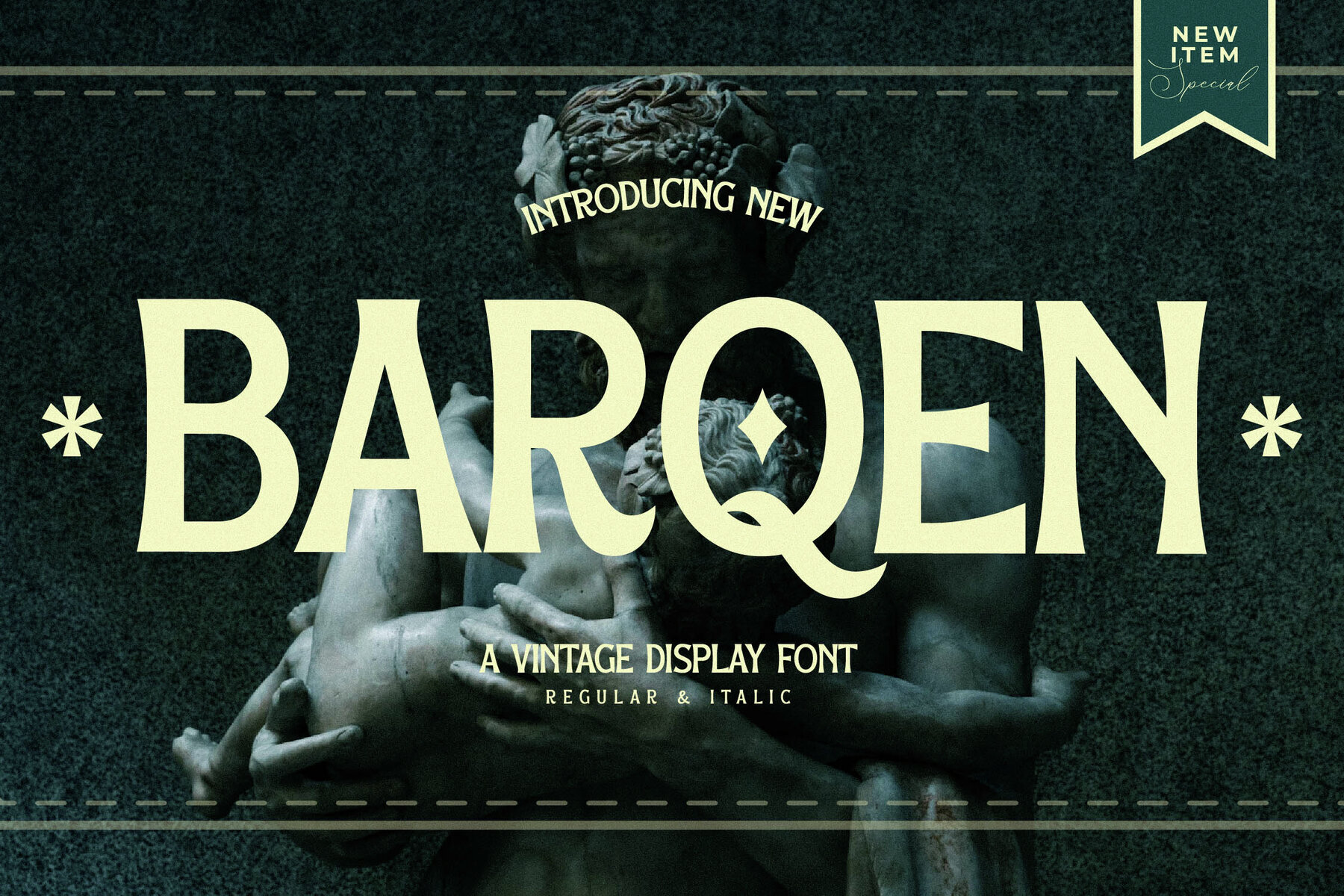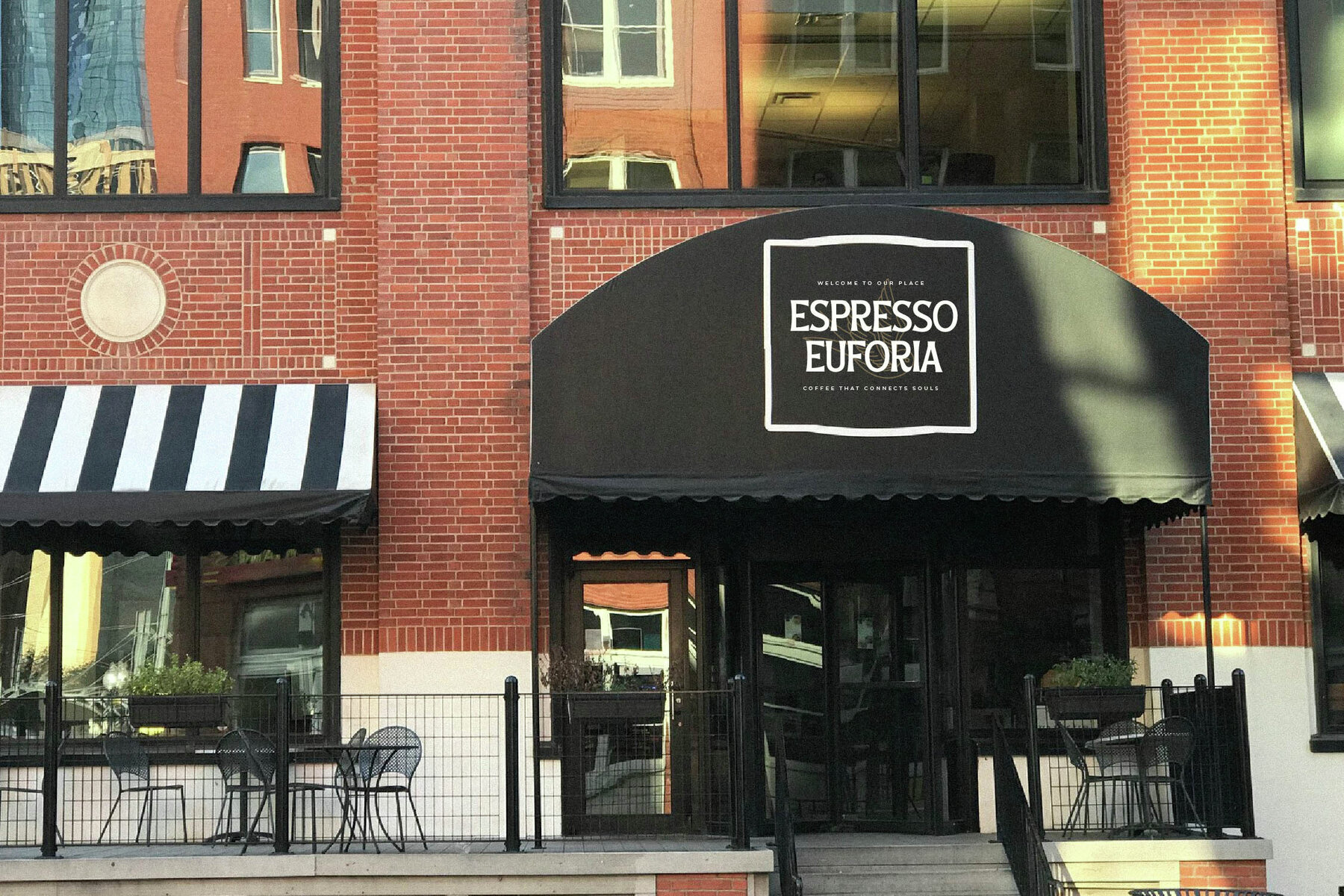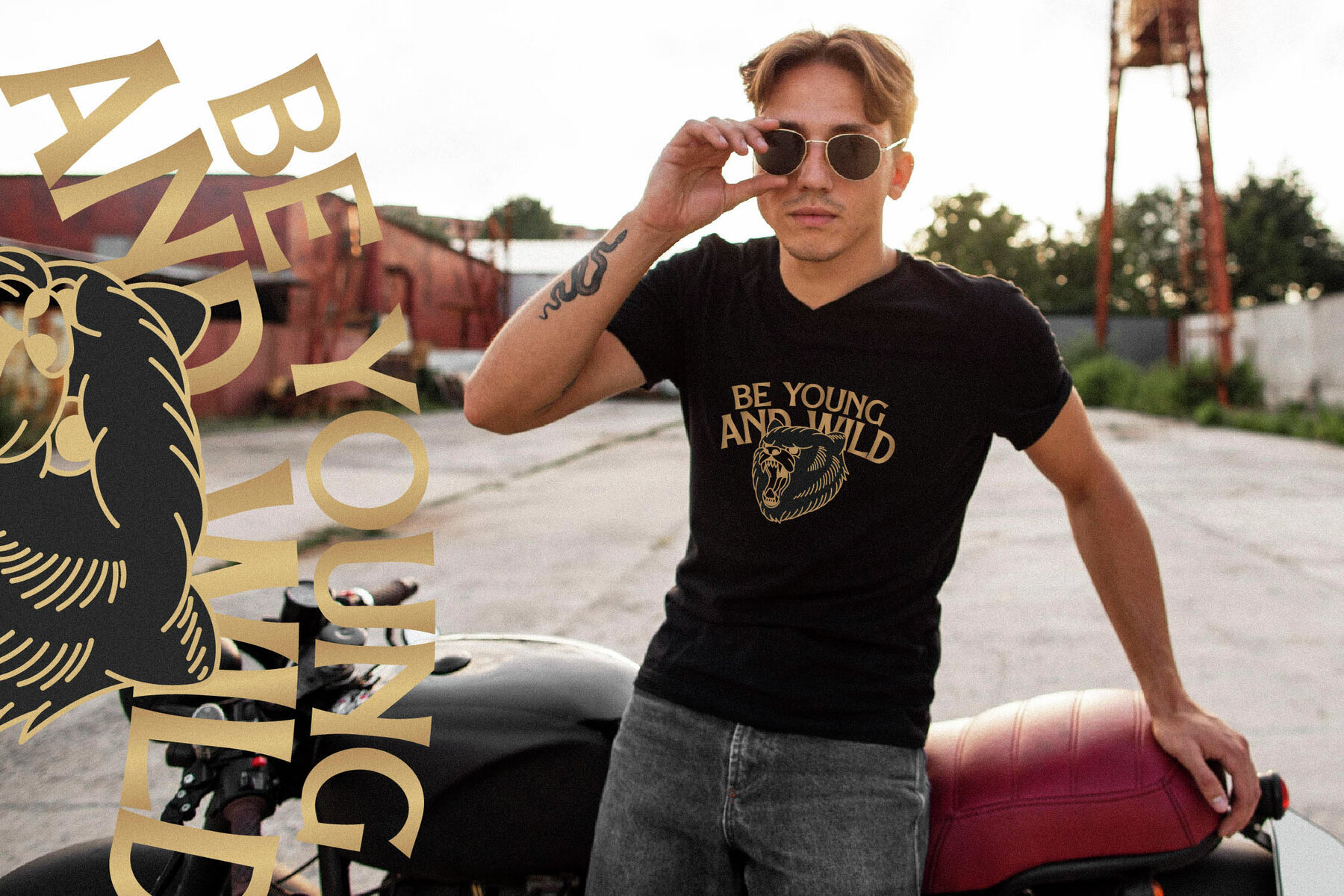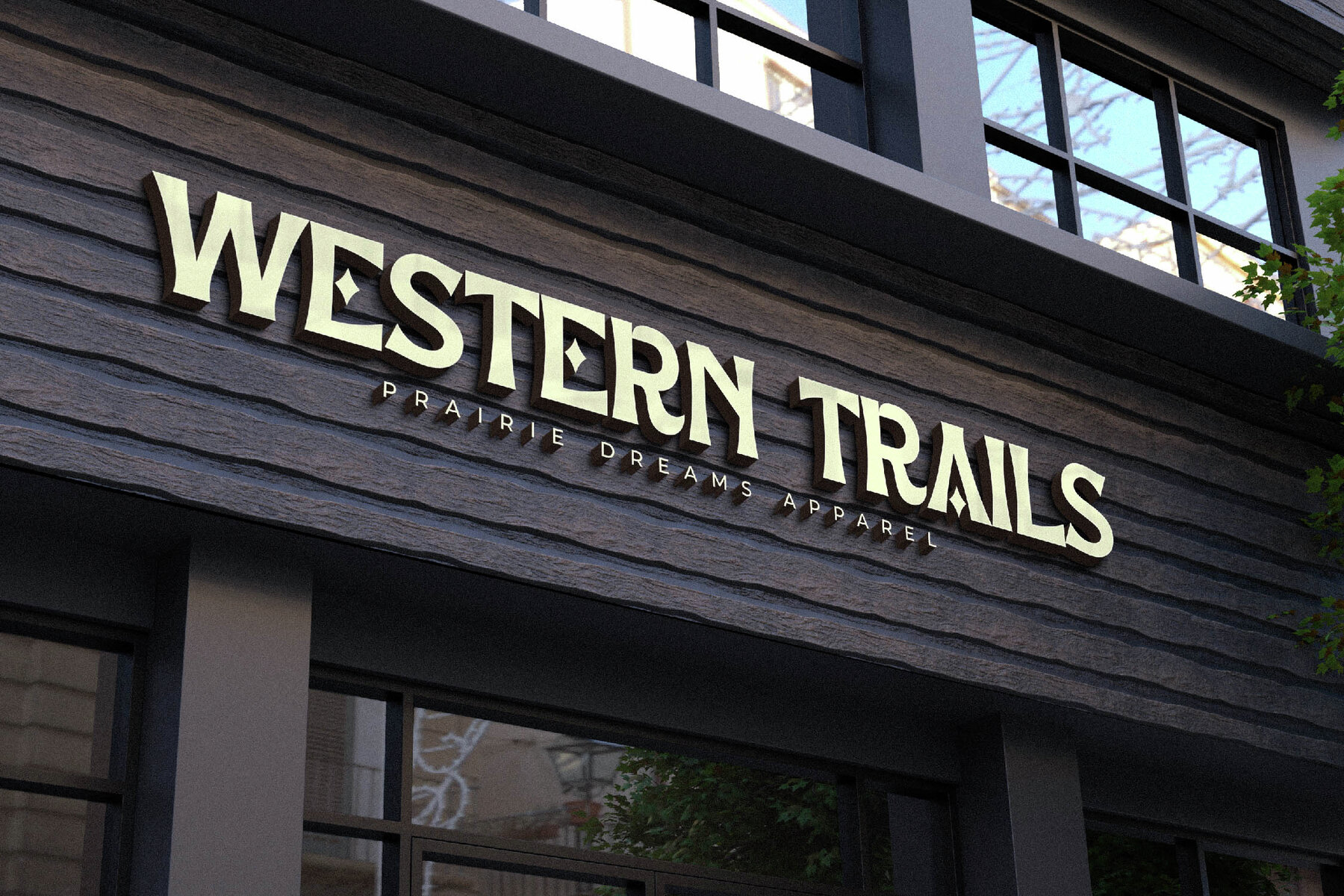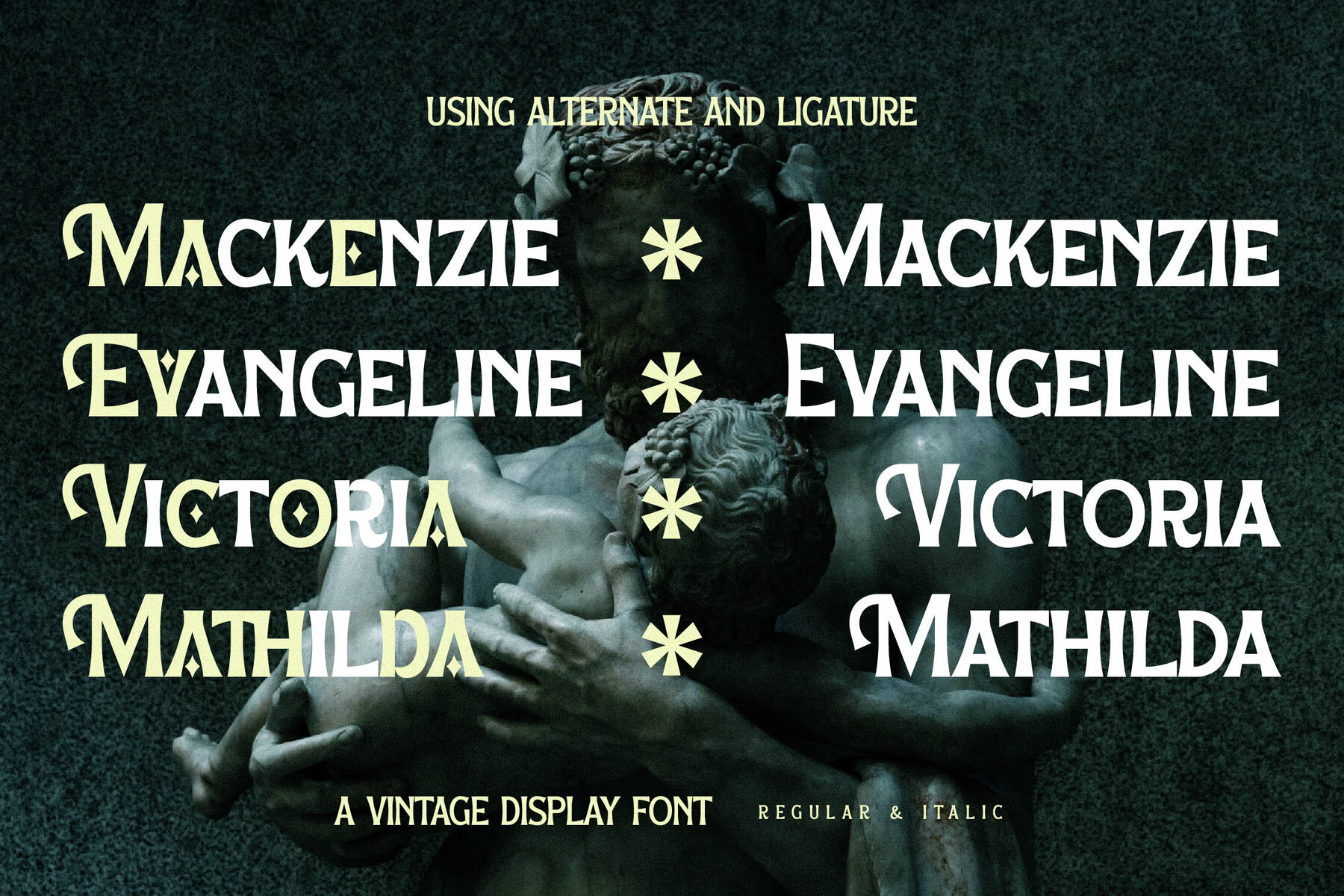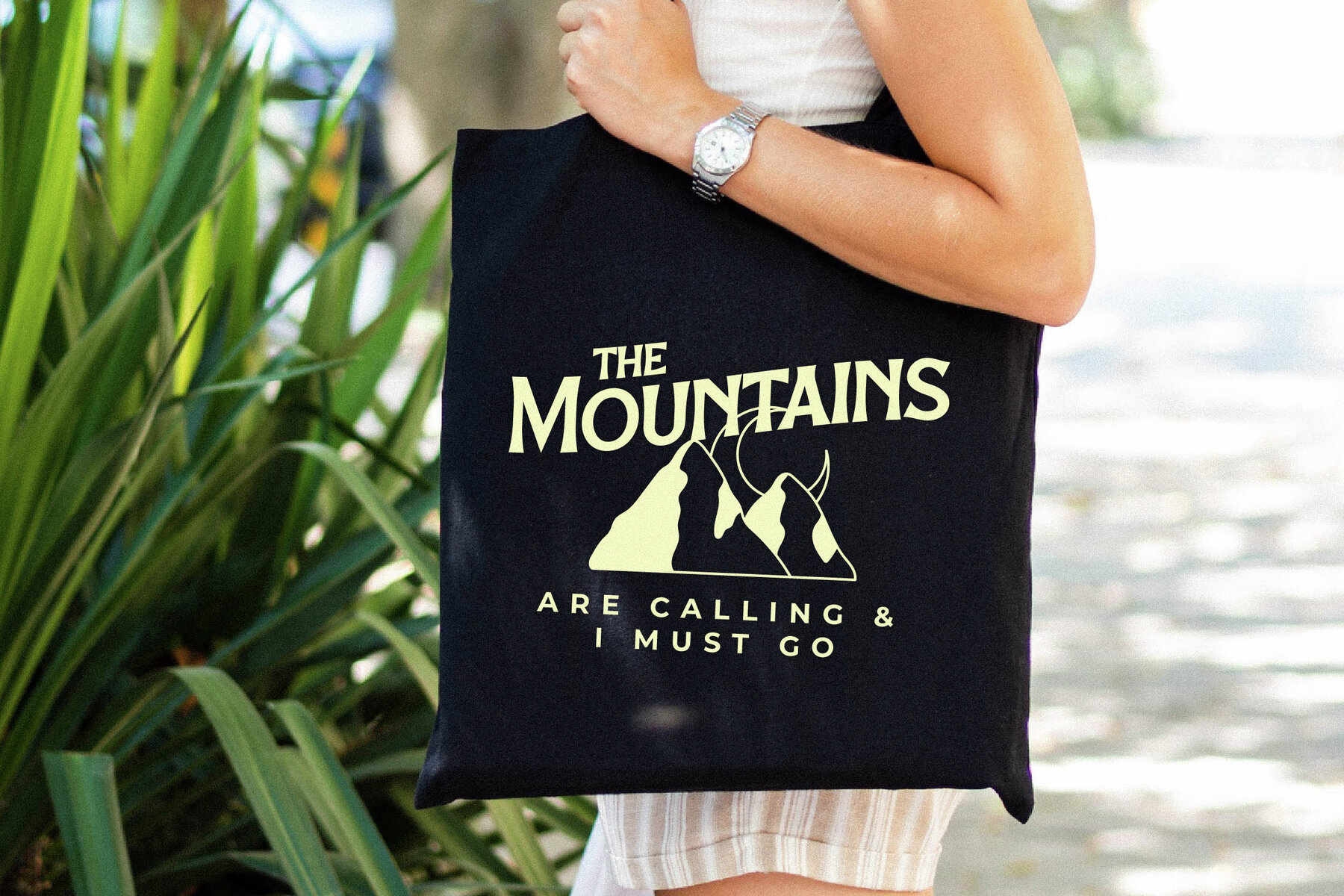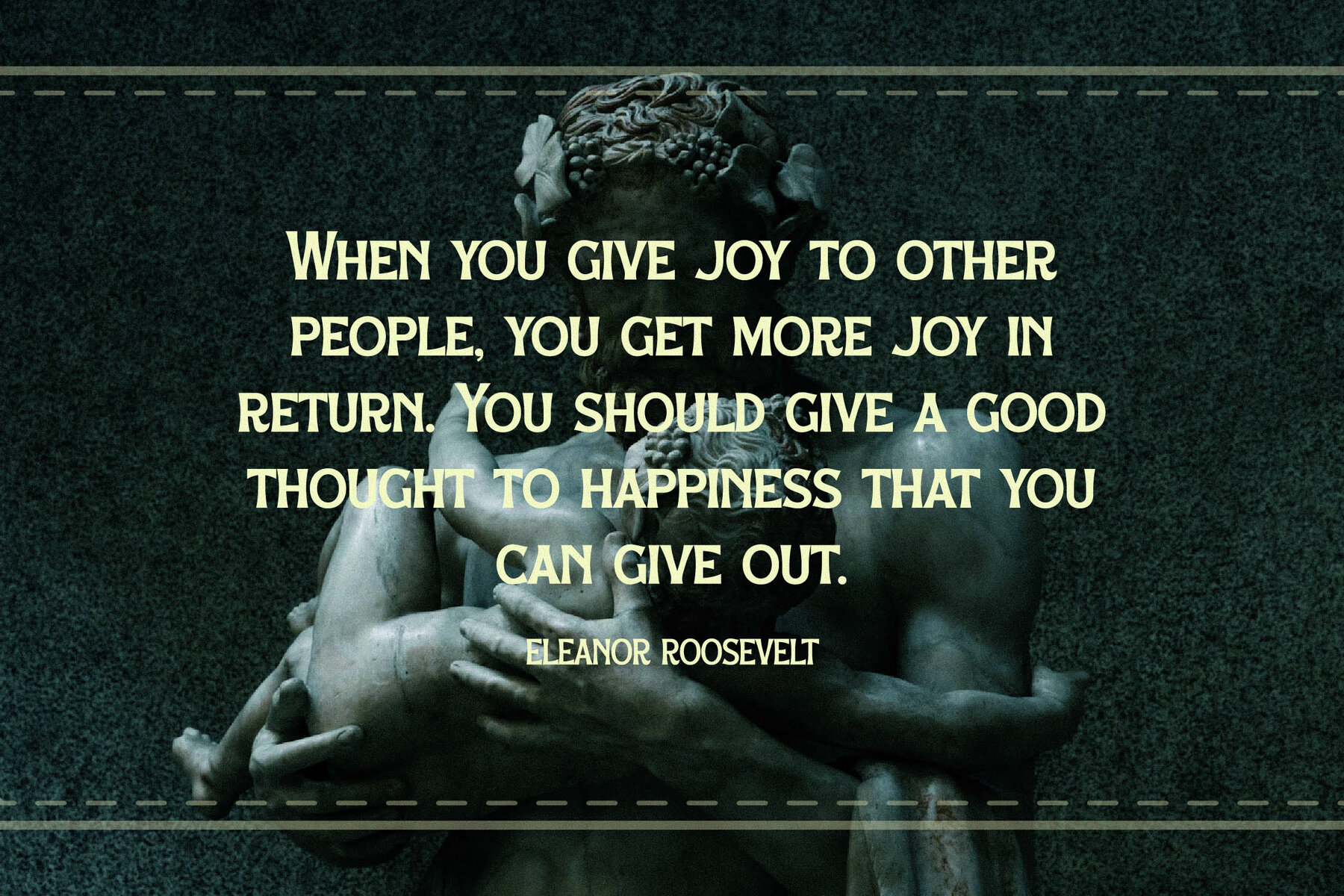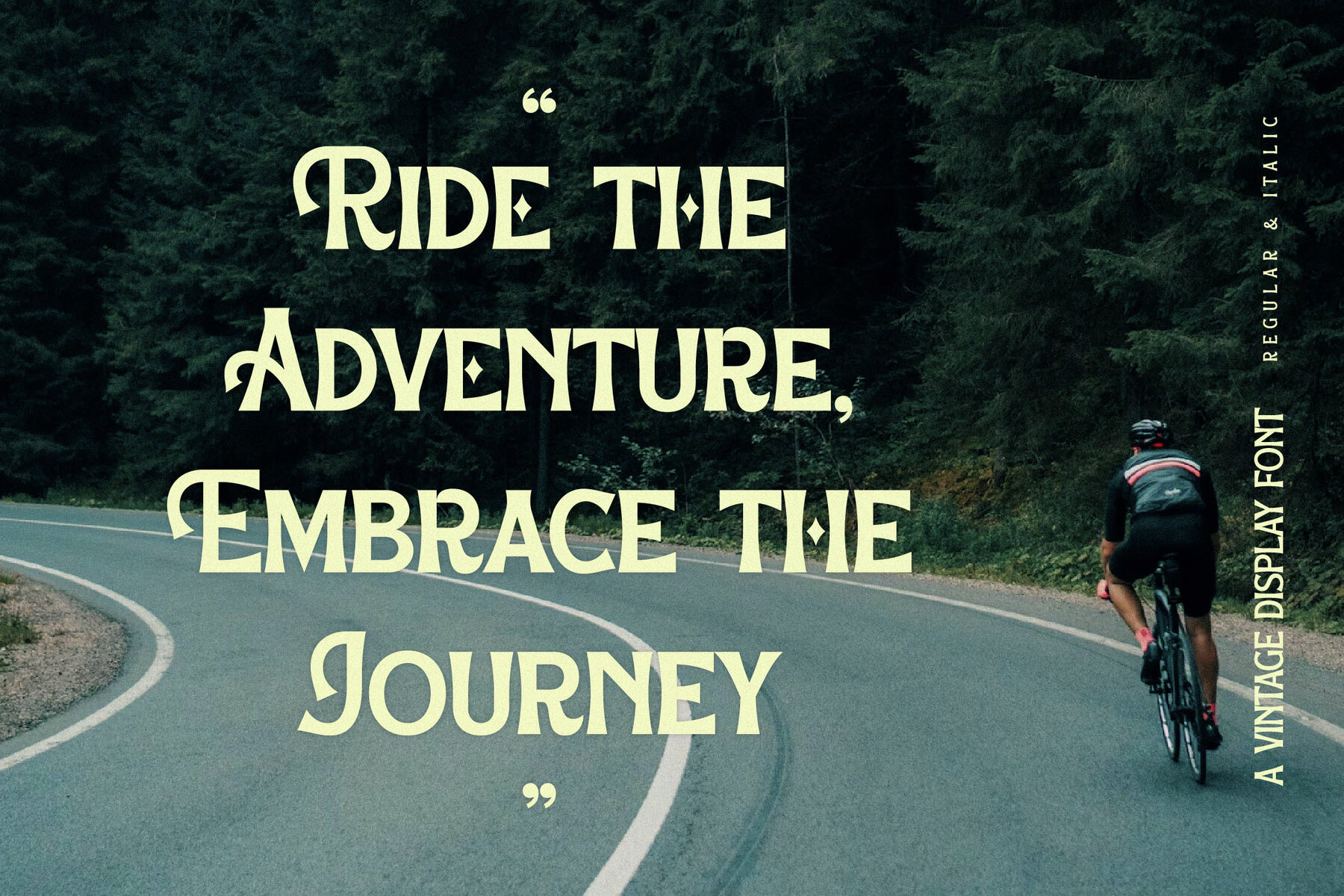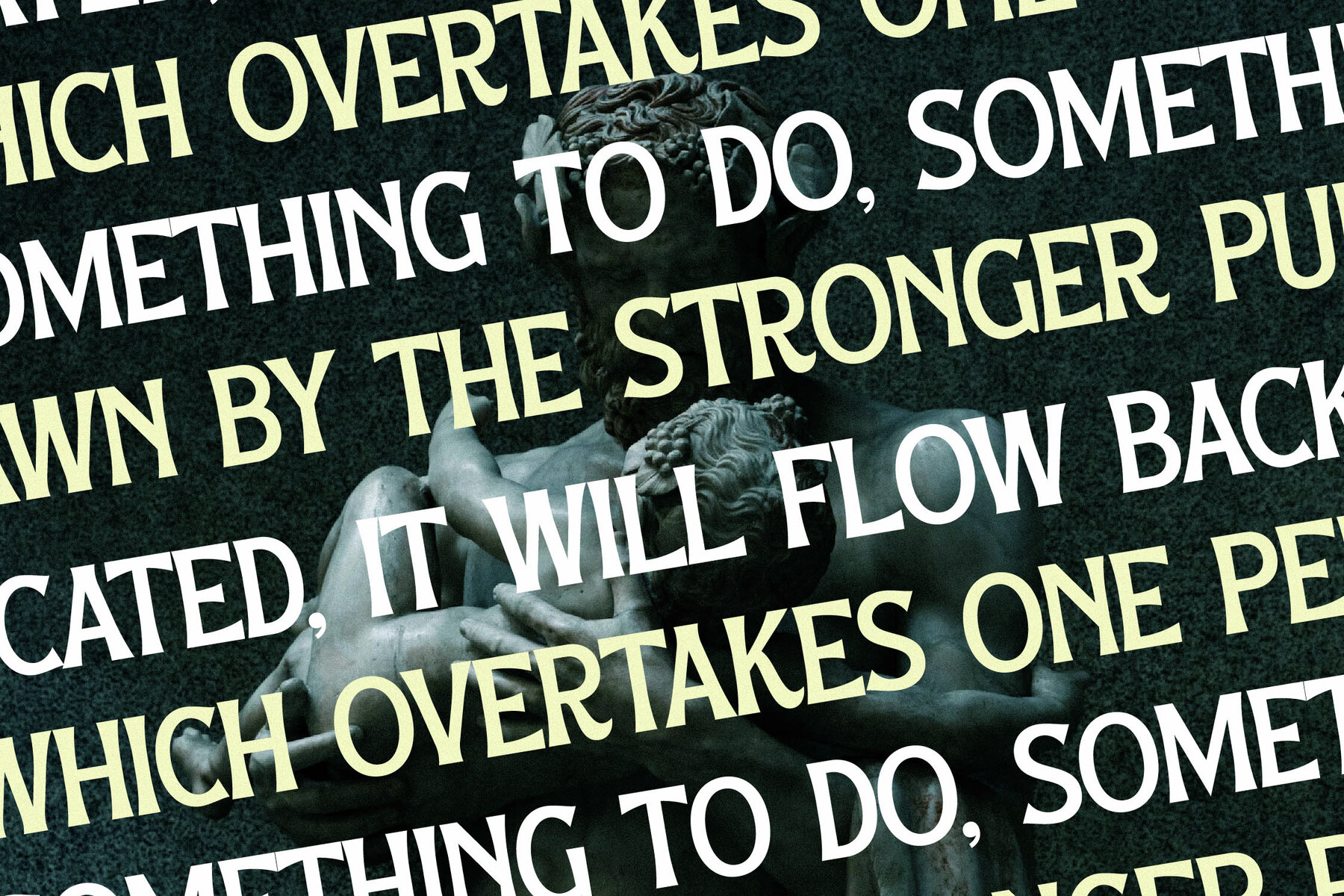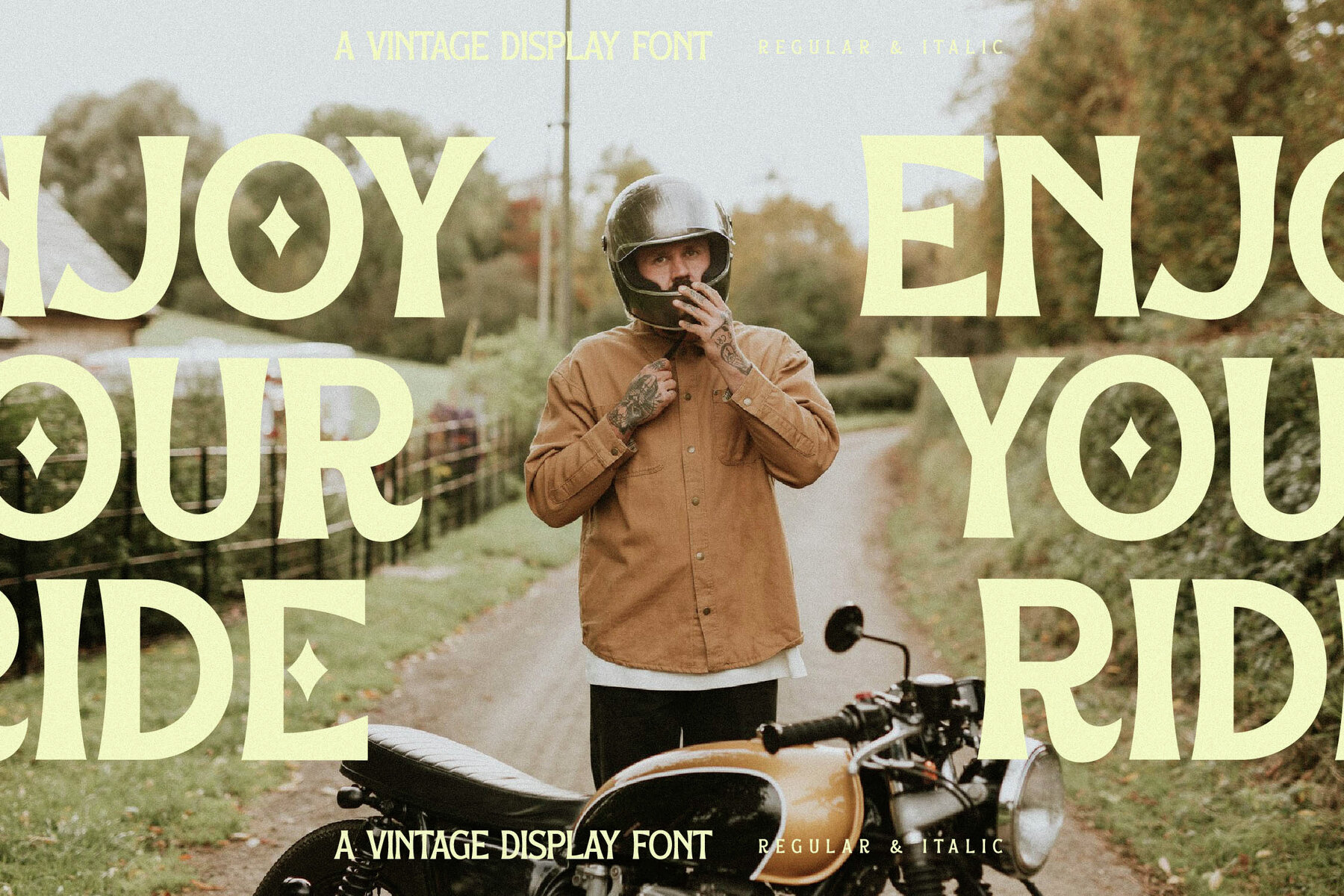
Barqen Font
Discover the sophisticated charm of the Barqen Typeface, an exquisite offering from Storytype Studio. This serif typeface marries modernity with classic elegance, bringing a unique flair to your creative projects. Whether crafting a luxe logo, titling a book or movie, curating a fashion line, or creating a standout magazine, Barqen offers unparalleled style and versatility.Barqen Typeface